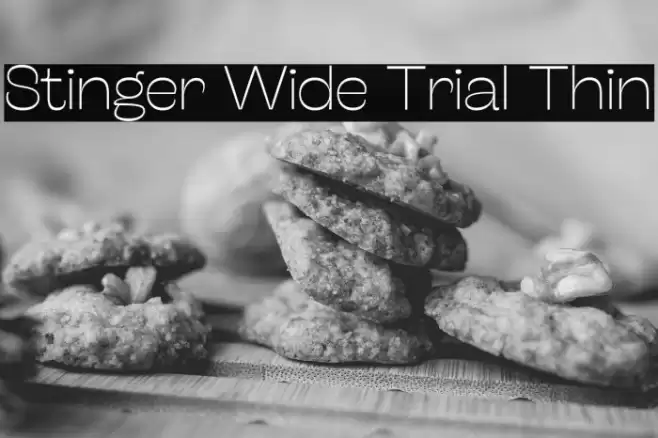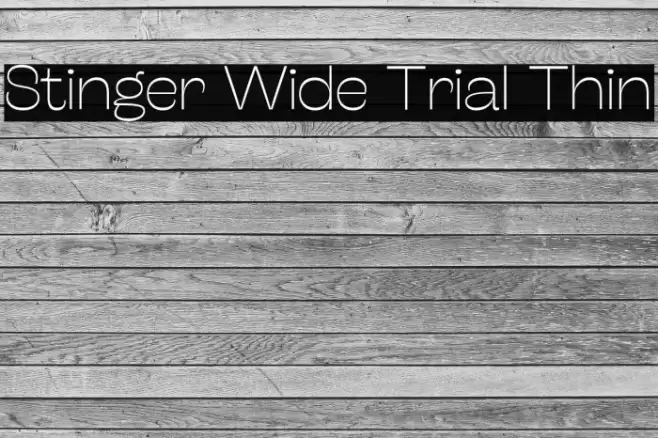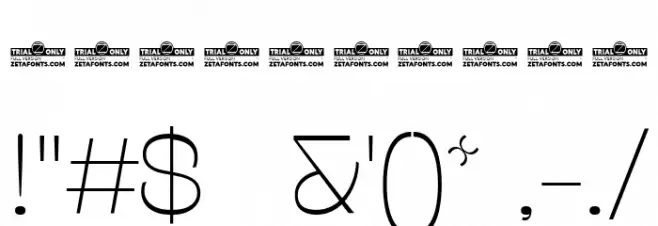
Stinger Wide Trial Thin Font
Stinger Wide Trial Thin Description
This font features a sleek, modern design with thin, elongated letterforms that convey a sense of elegance and sophistication. The characters are uniformly wide, providing a balanced and airy appearance. The uppercase and lowercase letters maintain a consistent style, with smooth curves and clean lines. The numerals and special characters are designed to complement the alphabet, ensuring a cohesive look across all text. This font's minimalist aesthetic makes it ideal for contemporary design projects.
A modern, thin, and wide font with a sleek, minimalist design from Regular fonts.
- Proposed Projects: Ideal for branding, editorial design, advertising, and digital interfaces where a modern and clean look is desired.
- Weight: Light
- Width: Expanded
- Use Case: Headlines, Logos, Digital interfaces